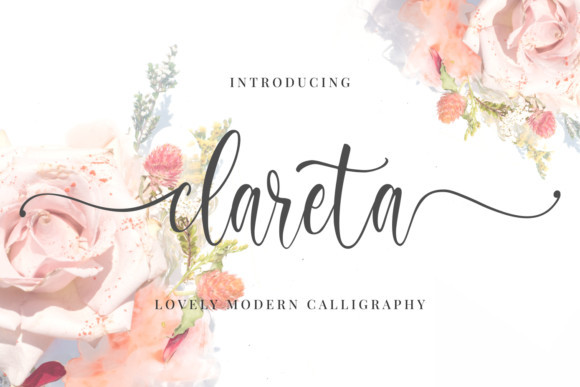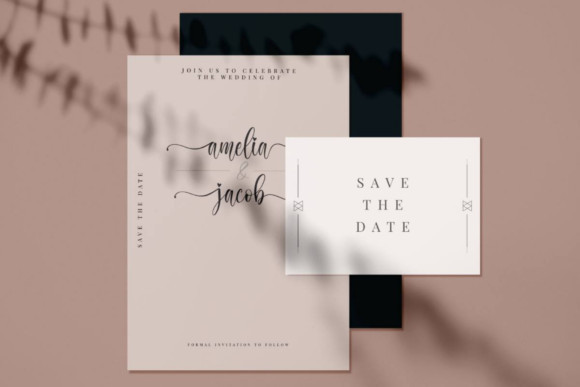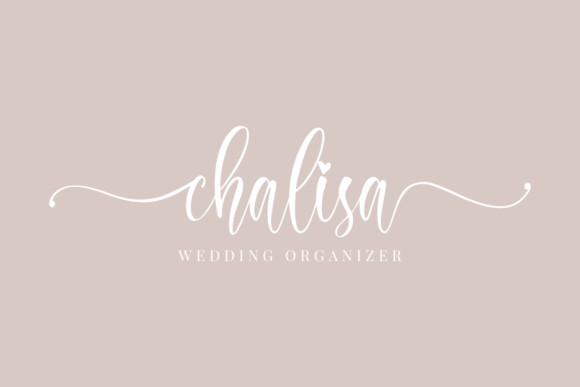
Clareta Font
Clareta is Lovely calligraphy font. This is a beautiful combination of timeless elegance and authentic calligraphy. This font will add a romantic feeling to any design!